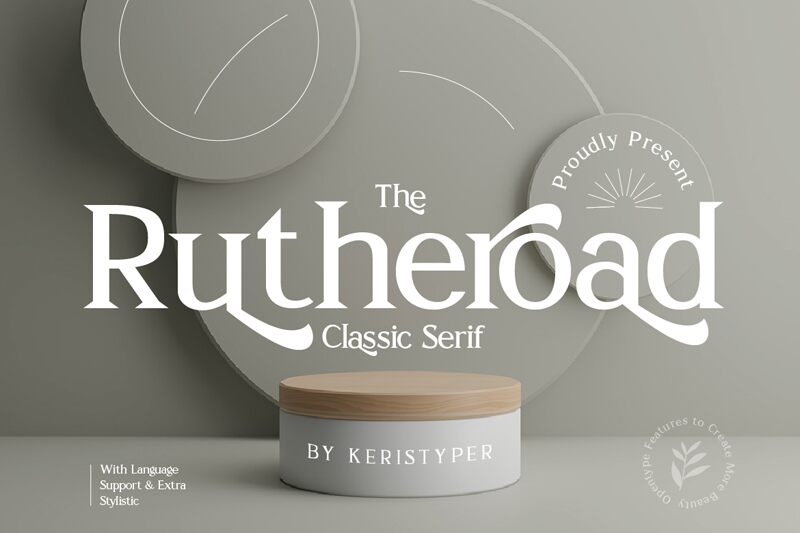
Rutheroad Regular
Rutheroad font is a sophisticated serif font by Tezar Tantular, defined by its legible and elegant appearance. Through each of its incredibly detailed and beautifully shaped letters, it delivers an eye-catching traditional appeal. It combines thick and thin strokes effectively when exclusively used in short text blocks or long titles and headings.